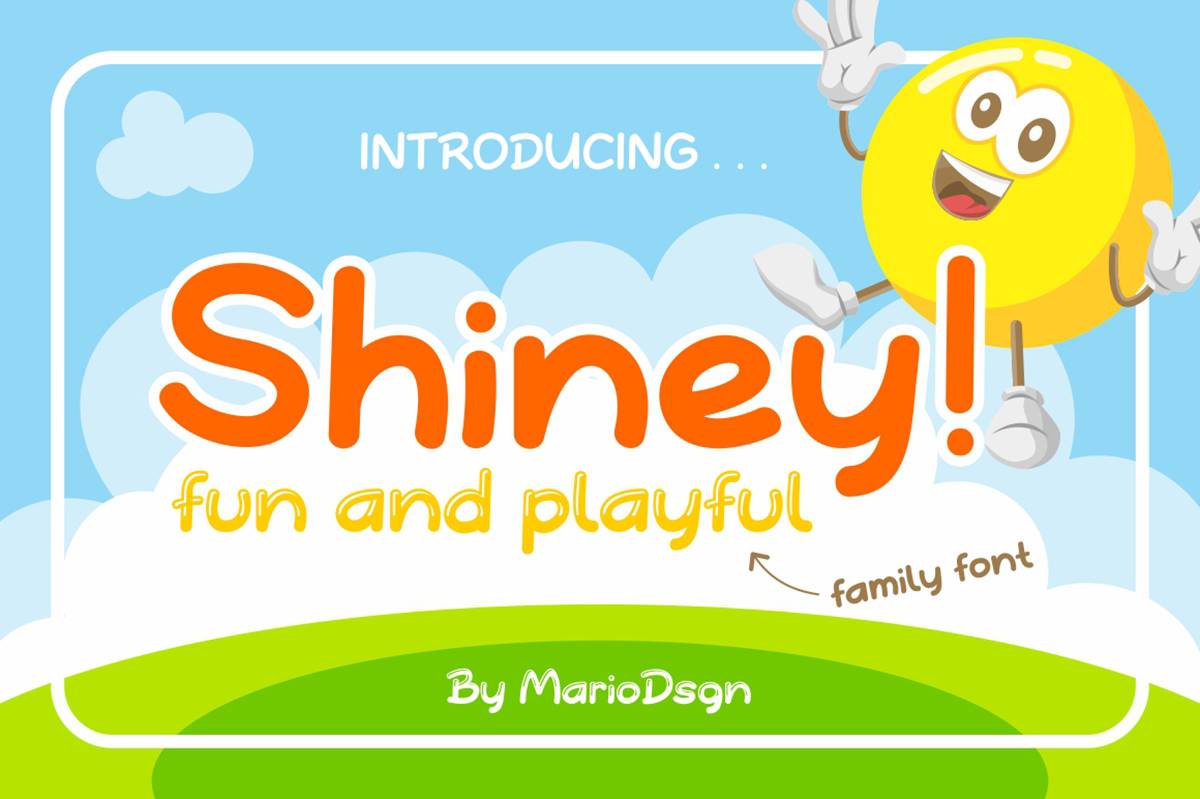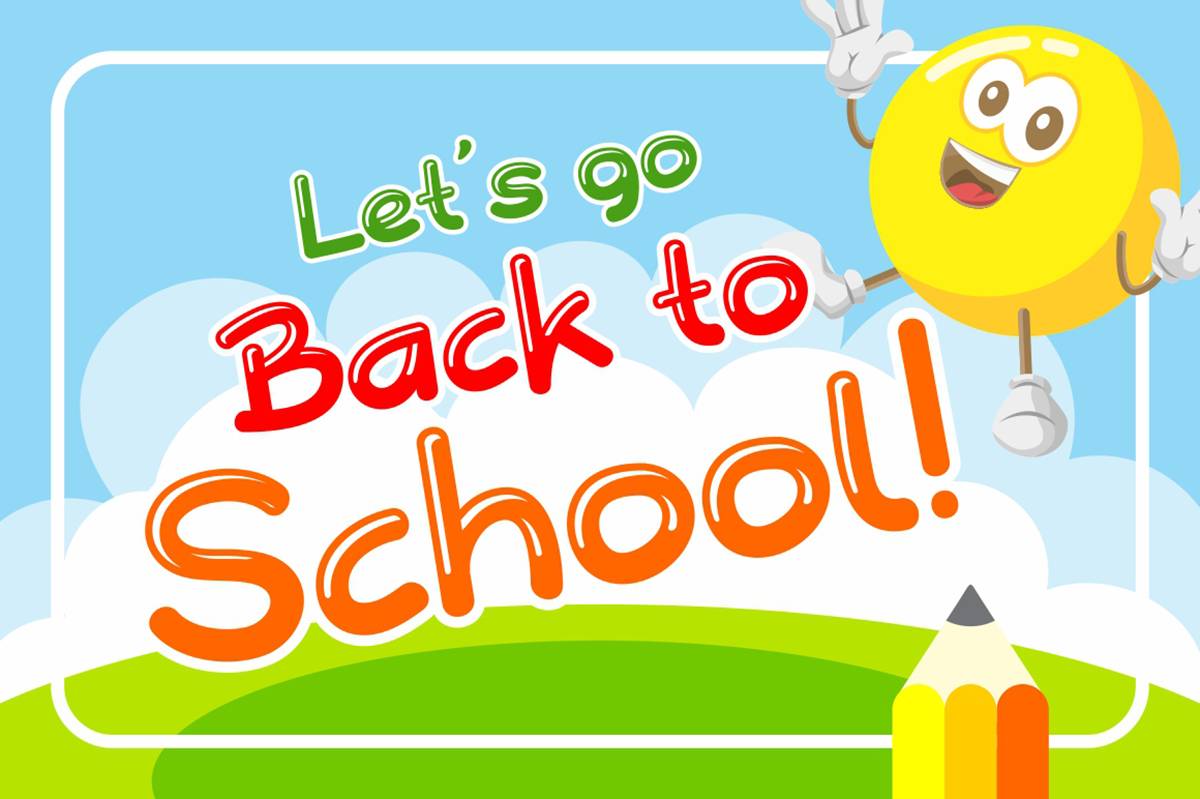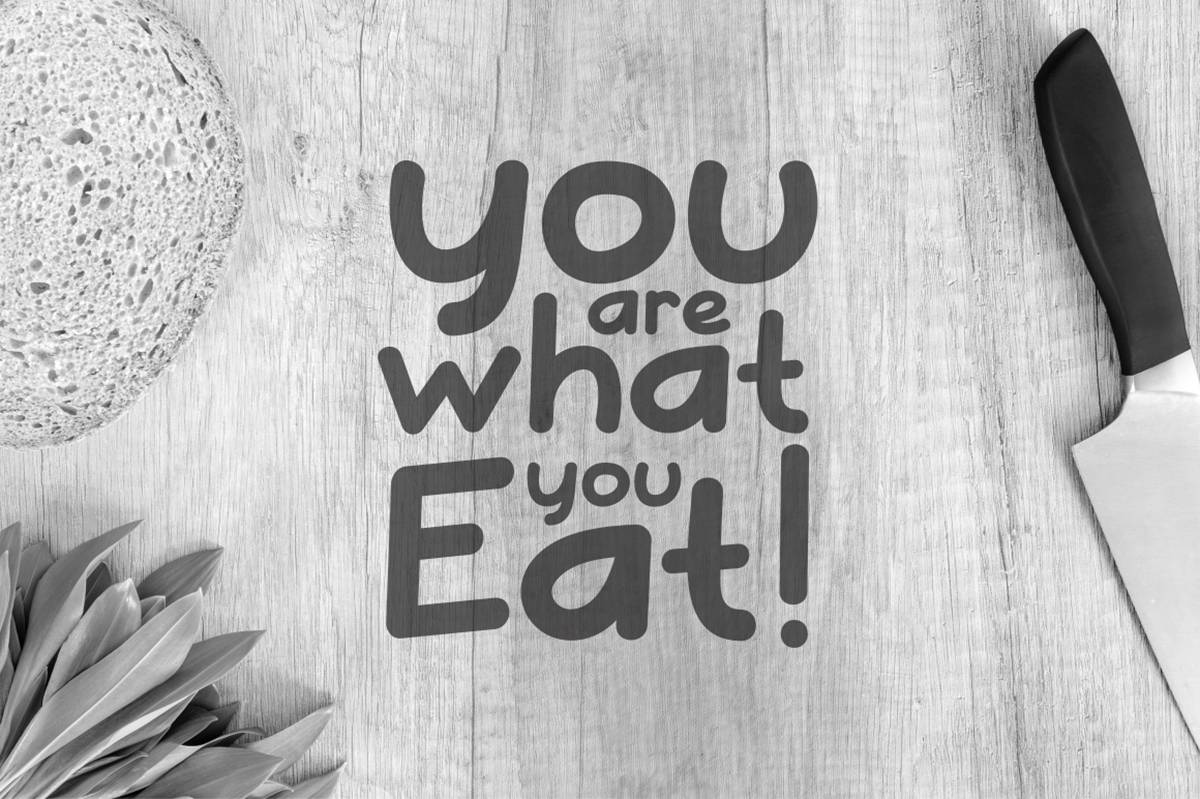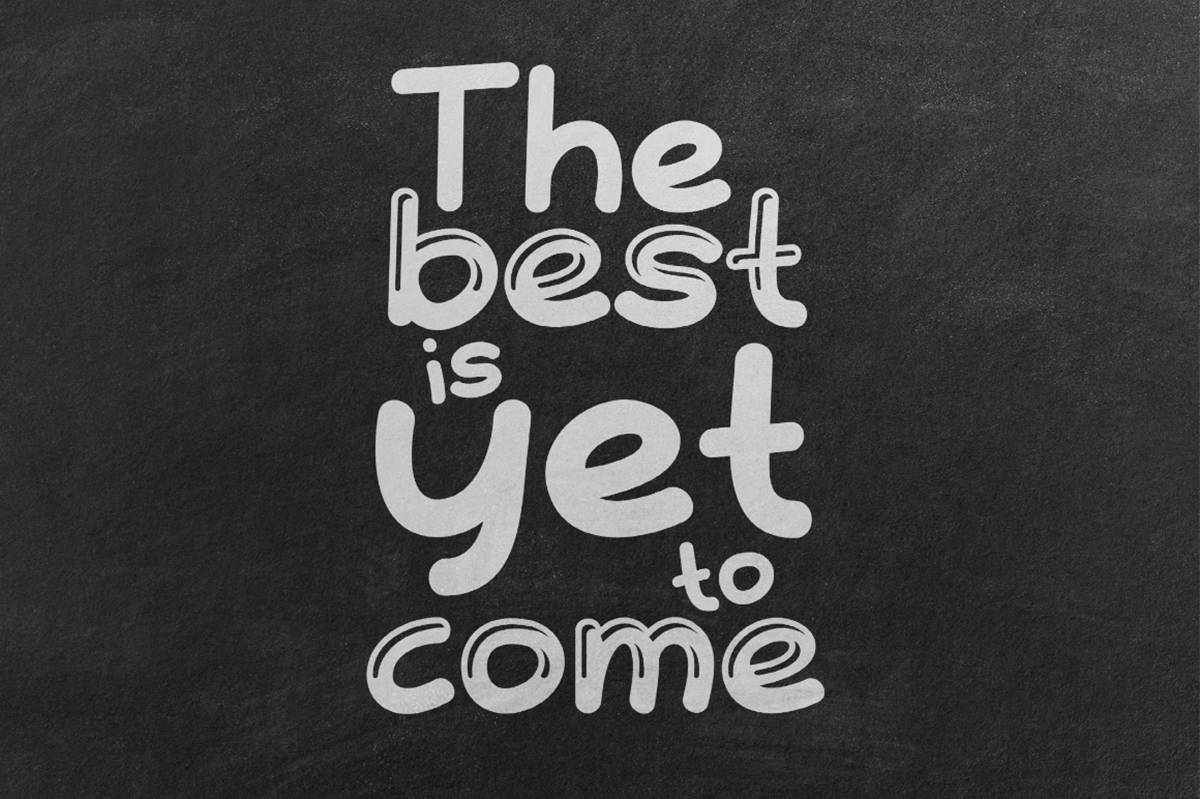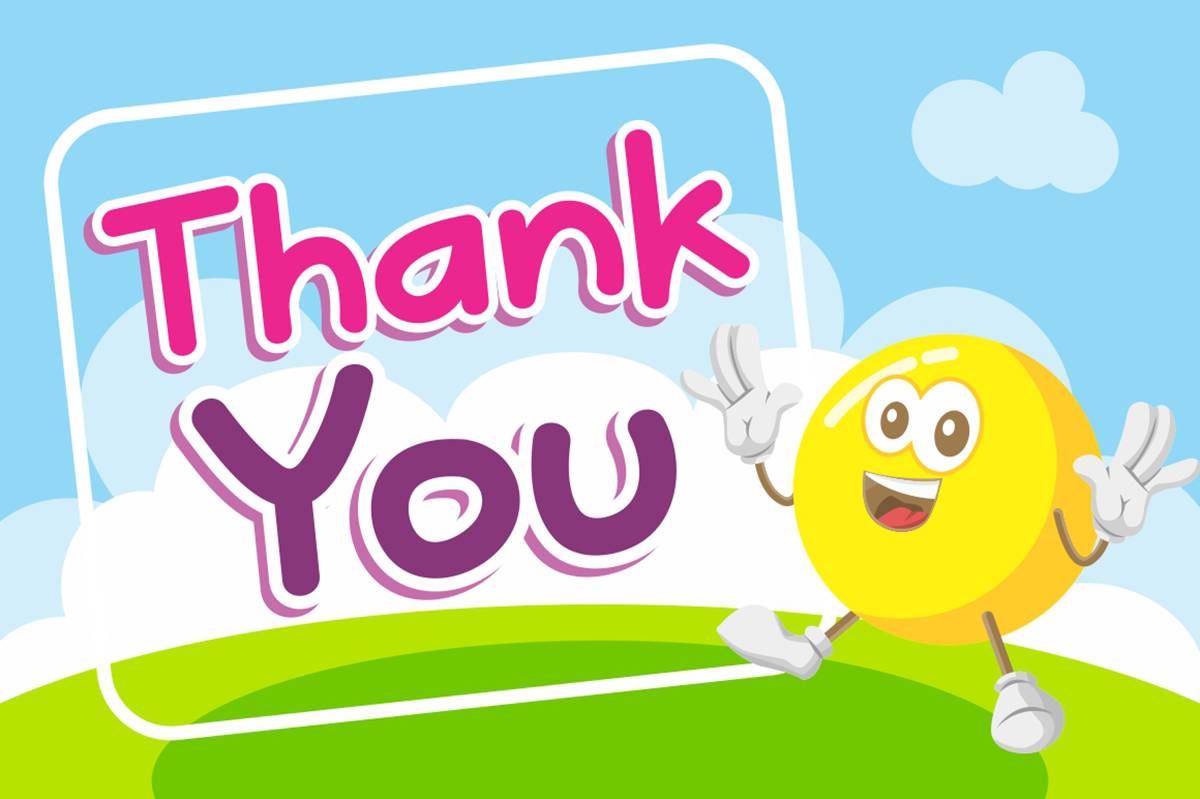
Shiney Display is a playful, casual sans-serif font with a hand-drawn feel, featuring rounded, slightly irregular letterforms that create a friendly and approachable look. Its moderate weight and open spacing make it ideal for informal designs such as children’s books, greeting cards, or creative branding where a warm, fun personality is desired. This font works best in headlines and display uses where its quirky charm can shine and engage the audience.
Shiney Display Font
About Shiney Display Font